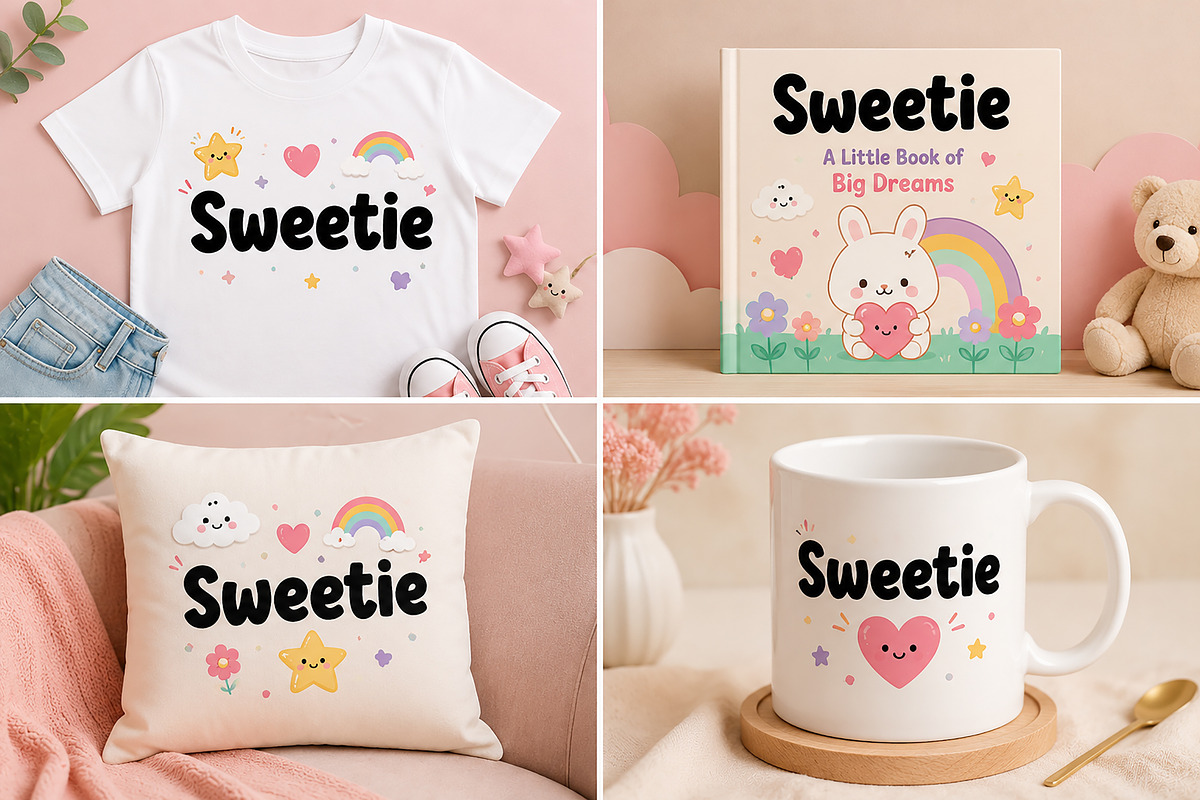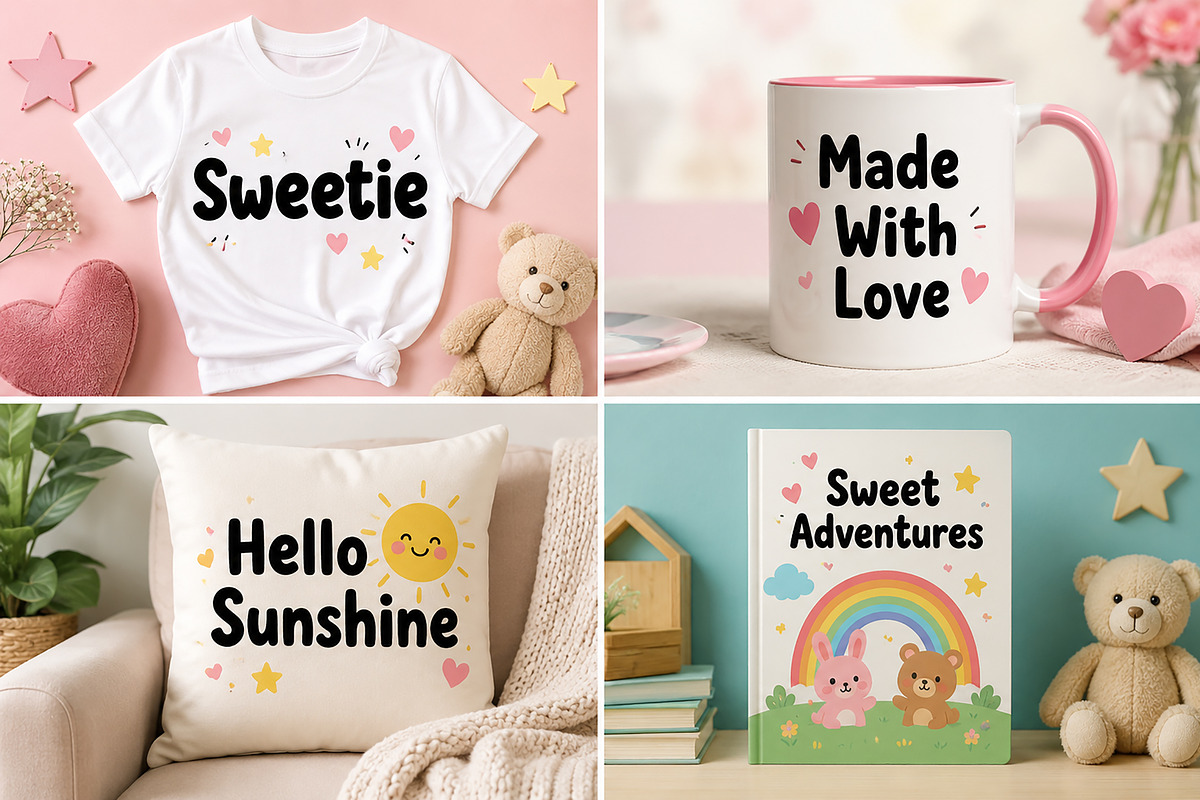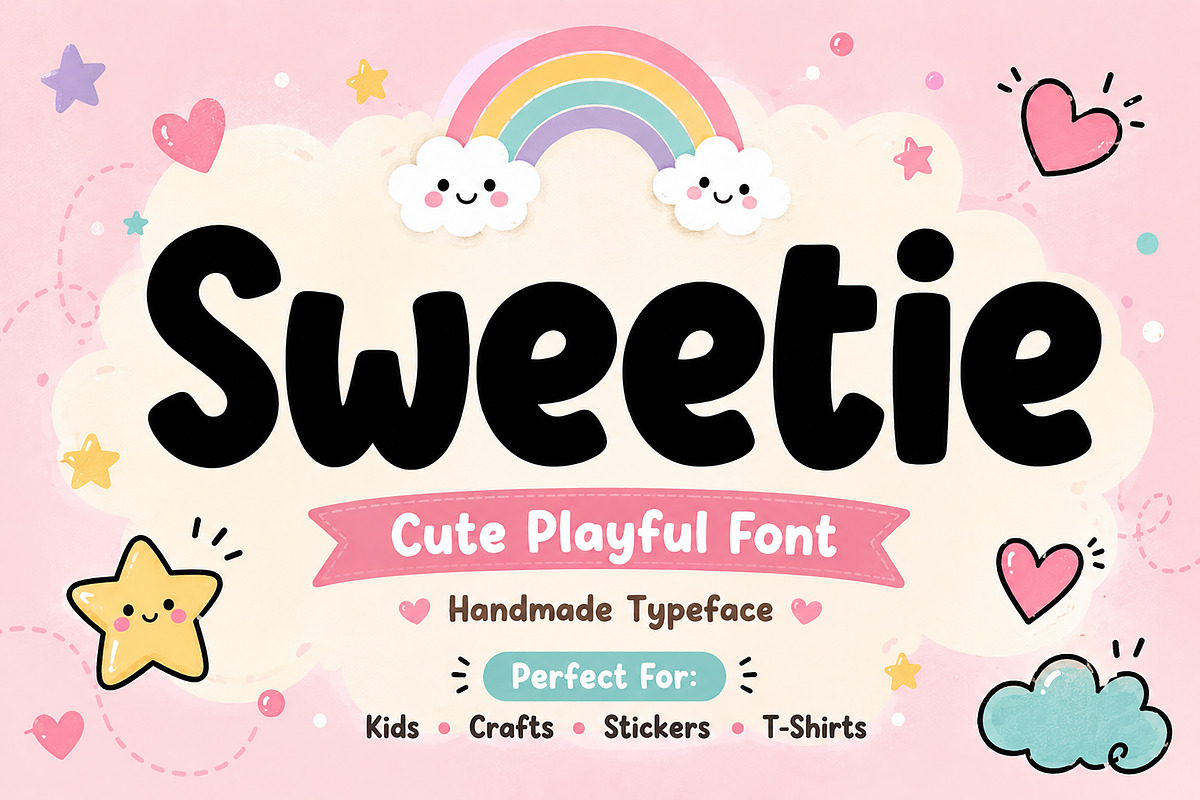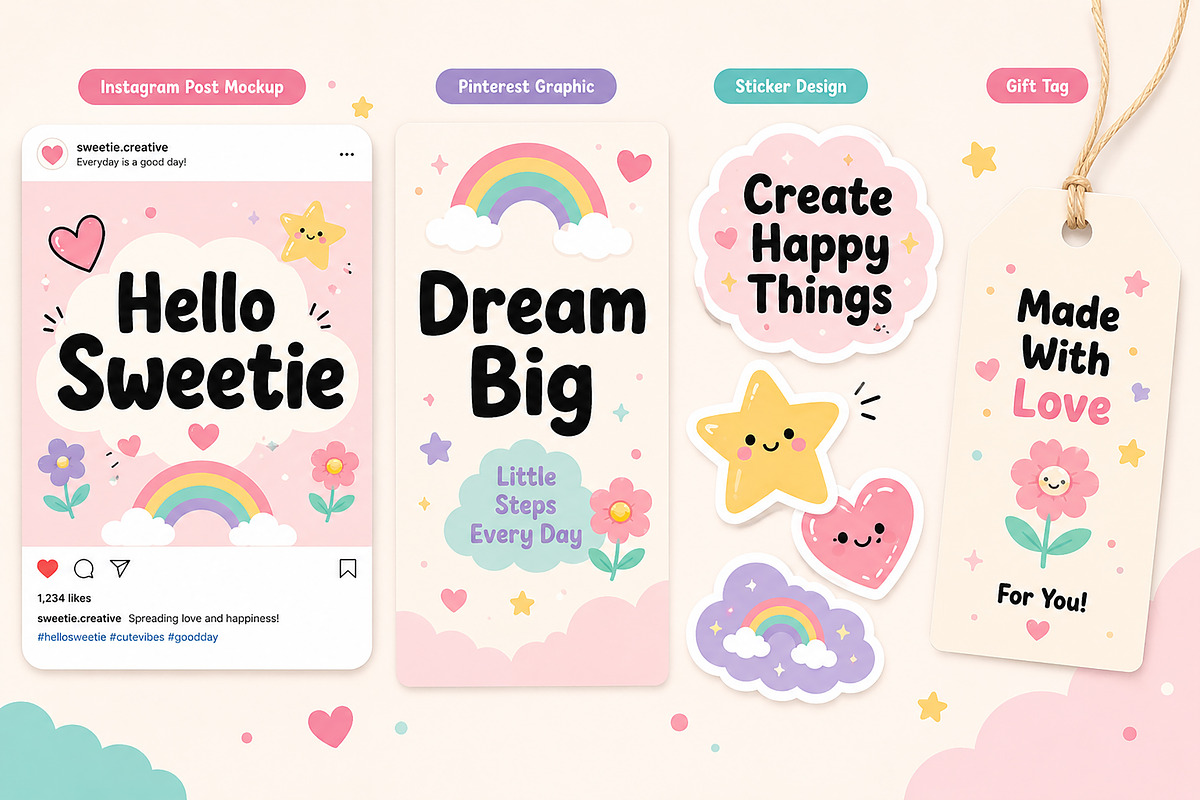
Sweetie
Sweetie – Cute Playful Font
Sweetie is a fun, cheerful, and adorable handwritten display font designed to bring happiness and charm to your creative projects. With its chunky rounded letters and playful personality, Sweetie is perfect for kids' designs, stickers, Cricut projects, t-shirts, nursery decorations, social media graphics, invitations, packaging, and more.
Whether you're creating cute branding, printable products, Etsy shop designs, or eye-catching social media content, Sweetie adds a warm and friendly touch that instantly stands out.
Kids Products
Stickers & Labels
Cricut & Silhouette Projects
T-Shirts & Merchandise
Nursery Decor
Greeting Cards
Birthday Invitations
Craft Projects
Etsy Products
Quotes & Typography
Uppercase Letters
Lowercase Letters
Easy to Read
Fun & Friendly Style
Ideal for Print and Digital Projects
Add a touch of sweetness to your next creative project with Sweetie — the perfect font for cute, happy, and playful designs!